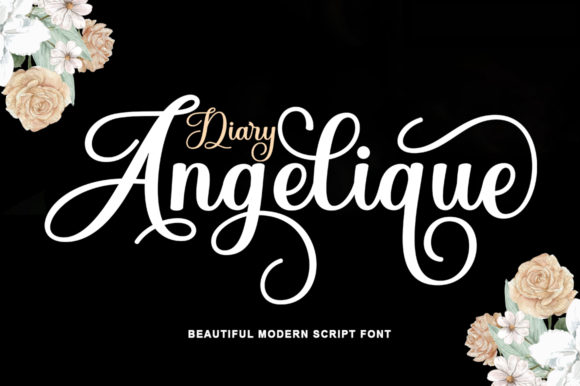
Step into a world of elegance and charm with Diary Angelique, a captivating script font that embodies the essence of romance and sophistication. Its delicate swashes dance across your designs like a gentle breeze, adding a touch of whimsy and enchantment to every letter. Inspired by the allure of handwritten notes, Diary Angelique captures the charm of individuality, making it an ideal choice for those seeking a personal and heartfelt connection with their audience.
As the perfect font for wedding invitations, Diary Angelique exudes an aura of timeless beauty and grace. The intricate details and flowing lines evoke a sense of elegance and refinement that will leave a lasting impression on your guests. Imagine your wedding vows written in the graceful strokes of Diary Angelique, creating a keepsake that is both visually stunning and deeply meaningful. Beyond wedding invitations, Diary Angelique's versatility extends to a wide spectrum of design projects. It lends a touch of sophistication to branding, adds a dash of charm to social media posts, and infuses a sense of luxury into product packaging.
Unleash your creativity and let Diary Angelique transform your designs into works of art. Its PUA encoding grants you effortless access to a treasure trove of glyphs and ligatures, empowering you to explore endless possibilities and create truly unique and mesmerizing compositions. With Diary Angelique at your fingertips, you'll discover a font that speaks to your heart, captivates your audience, and leaves an indelible mark on their minds.